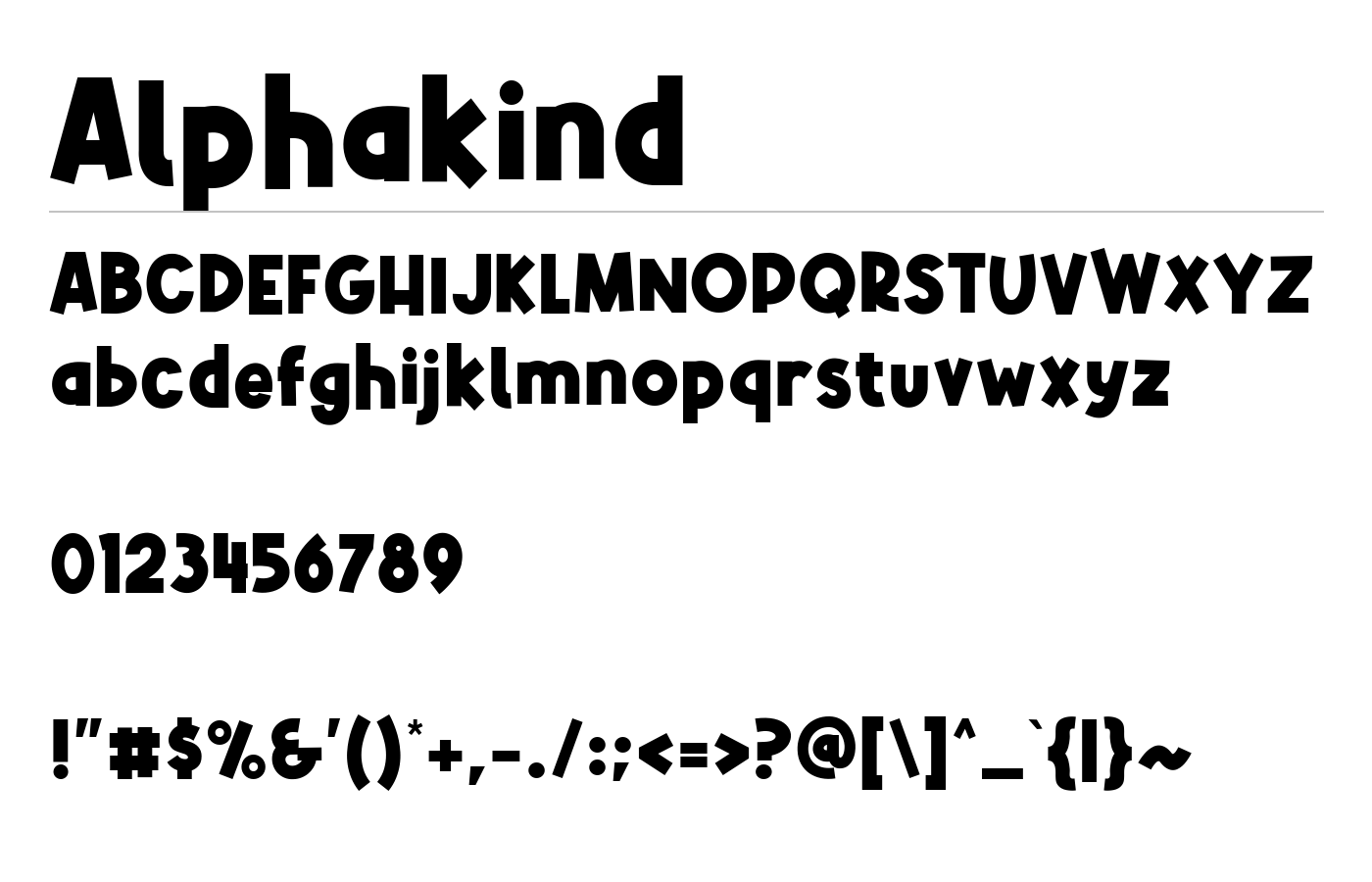
Alphakind is a bold, playful sans serif font with a strong presence and a slightly quirky character, evident in its uneven stroke widths and unique letter shapes. Its thick, geometric forms and lively curves make it ideal for eye-catching headlines, branding, and creative projects seeking a friendly, approachable vibe. This font works well in designs aimed at children, entertainment, or casual communication where a sense of fun and impact is needed.
Alphakind Font
About Alphakind Font